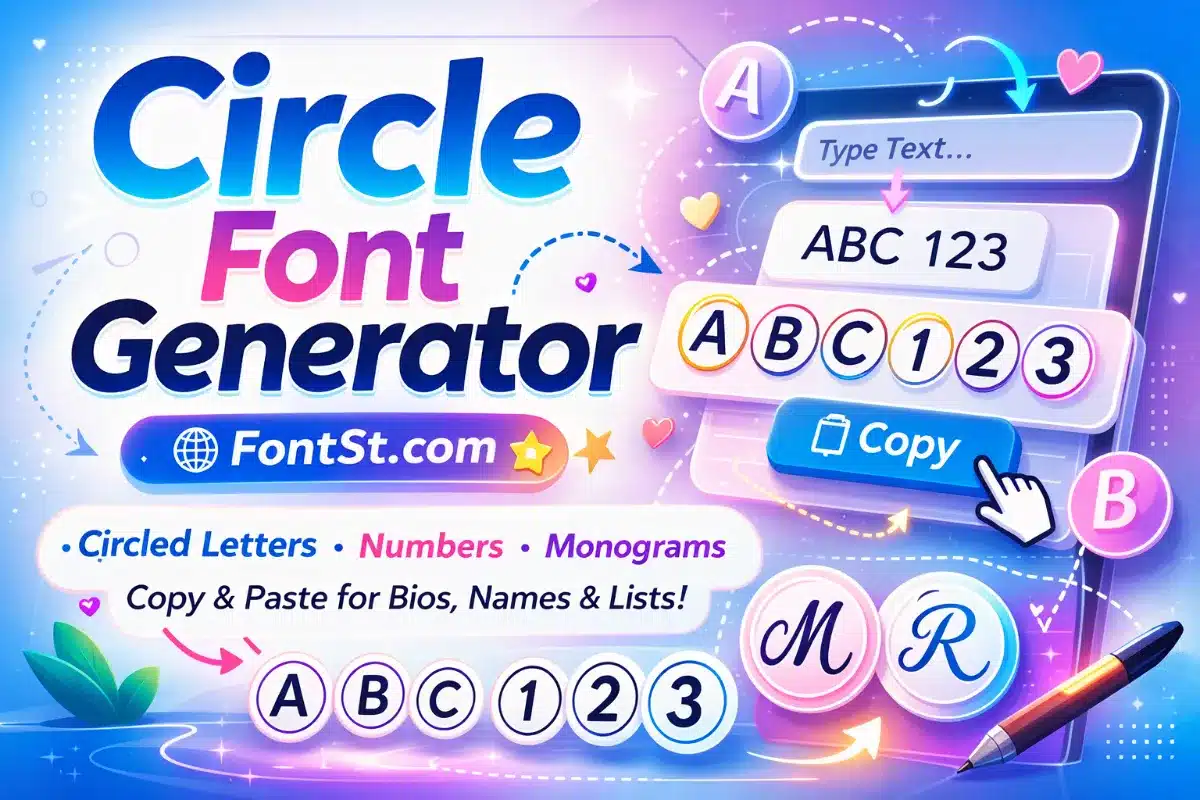
Create circled letters, circled numbers, and clean round text styles you can copy and paste for names, lists, usernames, and decorative text. This Circle Font Generator helps you turn plain characters into circle-style symbols that look neat, readable, and ready to use across social media, documents, and creative layouts.
A font inside circle usually refers to letters or numbers shown inside a round shape, such as Ⓐ, ⓑ, ①, or ㊷. On the web, this is usually not a traditional font file you install. It is more often a Unicode text style made from prebuilt circled characters that you can copy and paste.
That is why a circle text generator is useful. It gives you the look of text inside a circle without needing design software or custom typography tools.
Here are a few common examples:
Ⓐ Ⓑ Ⓒ Ⓓ
ⓐ ⓑ ⓒ ⓓ
① ② ③ ④
⓵ ⓶ ⓷ ⓸
Ⓧ Ⓨ Ⓩ
These styles are popular because they are simple, eye-catching, and still easy to read.
Using a font in circle generator is straightforward. The goal is not to replace your device font, but to convert plain text into circled characters you can paste anywhere.
Step 1: Type Simple Text
Start with something short, such as:
ABC
Sale 1
Room 2
VIP
List A
Shorter text works best because not every circled style supports long words or every symbol.
Step 2: Pick A Circle Style
Most generators will show a few visual options. Common ones include:
uppercase circled letters
lowercase circled letters
circled numbers
bold or heavier circle-like styles
enclosed alphanumeric symbols
For example:
ABC → ⒶⒷⒸ
abc → ⓐⓑⓒ
123 → ①②③
Step 3: Copy And Paste
Once you find the style you want, copy it and paste it into:
Instagram bios
TikTok names
Discord channels
bullet lists
headings
study notes
invitations
monograms and decorative labels
Font inside circle
Step 4: Check Compatibility
Most circled Unicode characters work well in modern apps, but some rare styles may render differently depending on platform. It is always smart to preview the result before using it in something important.
A circle typeface is a broader design idea. It can mean a font style inspired by rounded shapes, geometric forms, or letters enclosed in circles. In design language, this might describe a real font family with smooth circular curves.
In copy-and-paste text, it usually means symbols that already appear inside circles.
That distinction matters.
Term
What It Usually Means
Circle typeface
A design style with rounded or circular letterforms
Font inside circle
Letters or numbers visually placed inside circles
Circled text generator
A tool that converts plain text into Unicode circled characters
So if someone searches for circle typeface, they may want one of two things:
a rounded, geometric font look
actual circled letters and numbers they can copy
This page focuses on the second one, because that is what most users want for quick copy-paste text.
Circled text is most useful when you can grab ready-made examples quickly. Here are the main styles people usually look for.
Alphabet In Circle Font
This is the most recognizable style. It turns regular letters into enclosed circle characters.
Uppercase examples:
Ⓐ Ⓑ Ⓒ Ⓓ Ⓔ Ⓕ
Ⓖ Ⓗ Ⓘ Ⓙ Ⓚ Ⓛ
Ⓜ Ⓝ Ⓞ Ⓟ Ⓠ Ⓡ
Ⓢ Ⓣ Ⓤ Ⓥ Ⓦ Ⓧ Ⓨ Ⓩ
Lowercase examples:
ⓐ ⓑ ⓒ ⓓ ⓔ ⓕ
ⓖ ⓗ ⓘ ⓙ ⓚ ⓛ
ⓜ ⓝ ⓞ ⓟ ⓠ ⓡ
ⓢ ⓣ ⓤ ⓥ ⓦ ⓧ ⓨ ⓩ
Useful copy-paste ideas:
ⒻⓄⓃⓉⓈⓉ
ⓒⓘⓡⓒⓛⓔ ⓣⓔⓧⓣ
ⒶⒷⒸ list
ⓢⓞⓕⓣ ⓡⓞⓤⓝⓓ
These are great for short labels, profile decoration, and clean list markers.
Circle Number Font
Circled numbers are especially useful for steps, rankings, outlines, and numbered sections.
Common examples:
① ② ③ ④ ⑤
⑥ ⑦ ⑧ ⑨ ⑩
⓵ ⓶ ⓷ ⓸ ⓹
⓺ ⓻ ⓼ ⓽ ⓾
Good use cases:
Step ①
Level ②
Option ③
Round ④
Top ⑤
These look cleaner than plain numbers when you want each step to stand out visually.
Circle Rounded Font
A circle rounded font usually refers to text that feels soft, smooth, and circular in shape. In copy-paste styling, this can mean circled letters, but it can also include rounded-looking Unicode styles that pair well with circled symbols.
Examples of rounded-feel text:
Ⓡⓞⓤⓝⓓ
Ⓢⓞⓕⓣ
ᖇOᑌᑎᗪ
ᴄɪʀᴄʟᴇ ᴠɪʙᴇ
This is useful when you want the text to feel friendly and modern rather than sharp or formal.
Circle Monogram Font
A circle monogram font is usually used for initials. People often want one or two letters that look elegant inside a circular form for logos, profile icons, wedding details, or branding marks.
Simple monogram-style ideas:
Ⓐ
Ⓙ
Ⓜ
Ⓡ
ⓈⓉ
ⒶⒷ
These work best with initials, because long words do not feel like true monograms.
Good examples:
Ⓔ for a profile icon
ⓁⓂ for two initials
Ⓐ wedding label
Ⓡ brand mark
Round Monogram Font
Round monogram font is close to circle monogram font, but the intent is often more decorative. It usually suggests initials with a softer, more polished shape rather than plain text conversion.
If you want a round monogram feel, keep it short and balanced:
Ⓐ
Ⓛ
Ⓡ
ⒿⓂ
ⓀⓈ
A practical tip here is simple: use one or two initials only. That keeps the look clean and more premium.
If you want a perfect circle font free option, the easiest answer is usually Unicode circled letters and numbers. They are free to use, easy to copy, and do not require installing a font file. For quick styling, this is more practical than downloading a separate typeface.
Examples:
Ⓐ Ⓑ Ⓒ
ⓐ ⓑ ⓒ
① ② ③
If you need a professional logo or brand monogram, a graphic designer may still use a real font plus custom circle shapes. But for everyday copy-paste use, Unicode is the simplest free solution.
Circle Regular Font
A circle regular font usually means a clean, standard circled style without extra decoration. The most common examples are the basic enclosed letters and enclosed numbers.
Examples:
ⒽⒺⓁⓁⓄ
ⓣⓔⓧⓣ
①②③④
This style is ideal when you want something neat and readable without looking too playful or too heavy.
Font With Perfect Circle O
If you are looking for a font with perfect circle O, there are two possible meanings:
the regular letter O designed with a very round geometric shape
the enclosed circle character Ⓞ or ⒪
For copy-and-paste text, the circled versions are usually what people mean:
Ⓞ
⒪
These are useful when you want a clean circular letterform without building it manually.
Circled letters and numbers are one of the easiest ways to make plain text stand out while staying readable. They work well for names, numbered lists, labels, initials, and short decorative text that needs a neat visual edge.